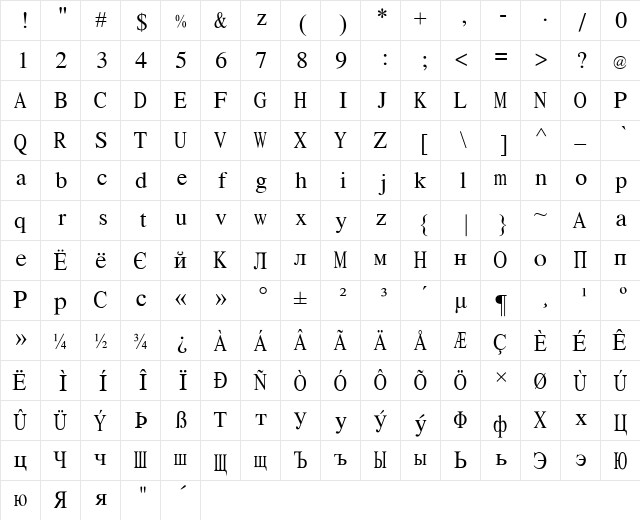
Pravda Fixed Pitch Regular
Design Context for Pravda Fixed Pitch Typeface
Pravda Fixed Pitch takes a measured approach to typography — its balanced proportions and neutral character make it a reliable workhorse for both digital and print work.